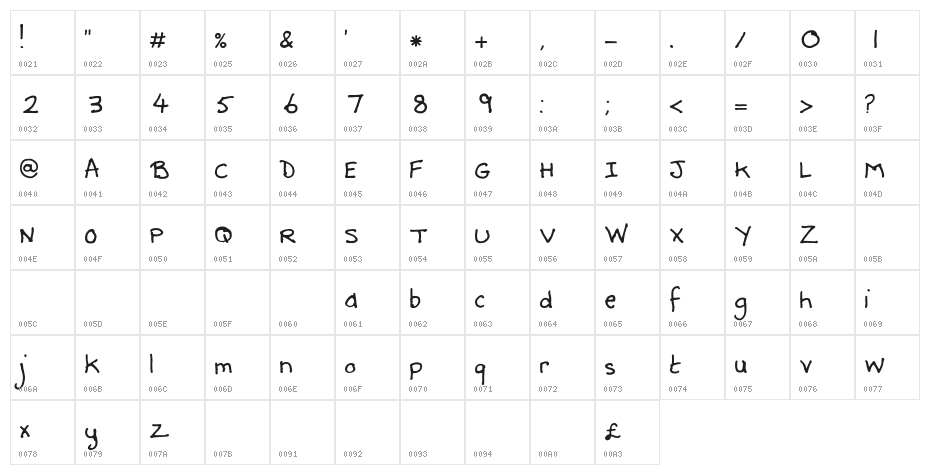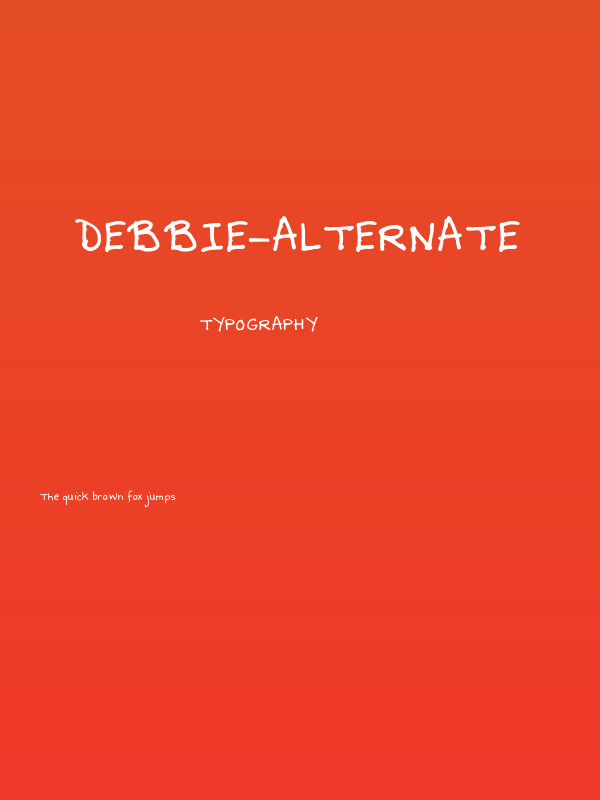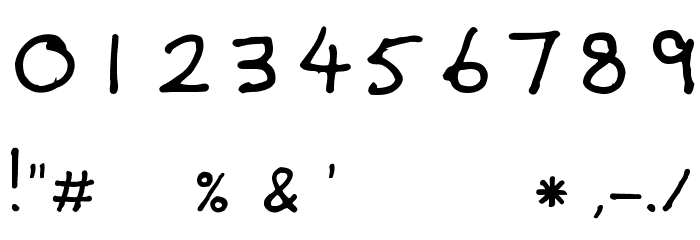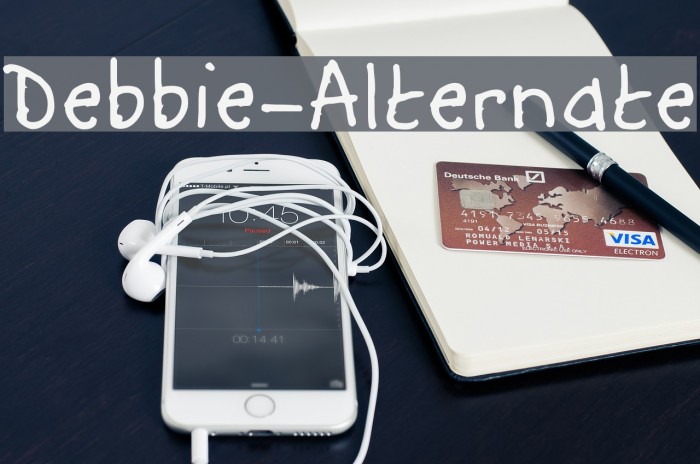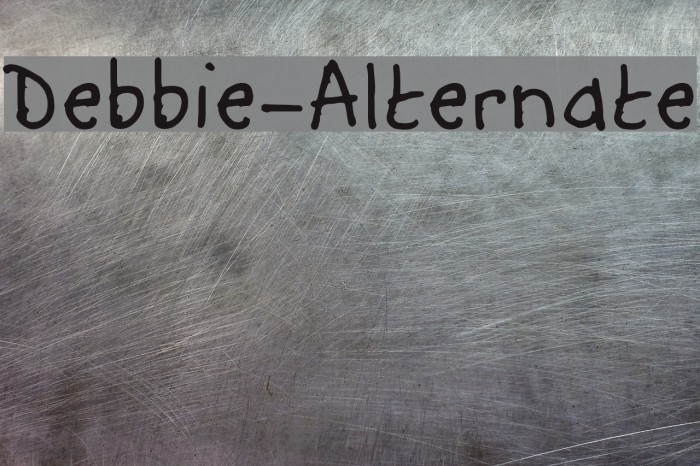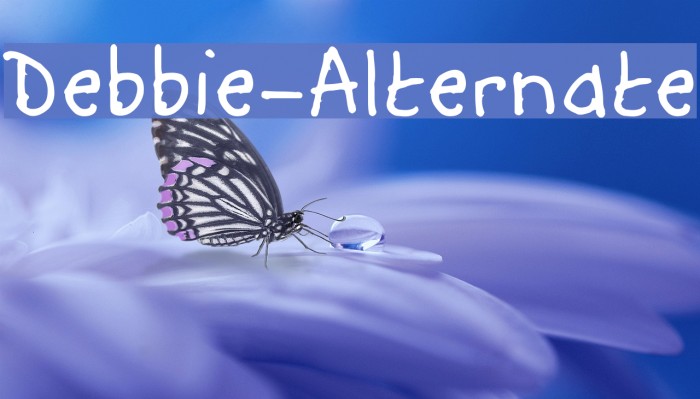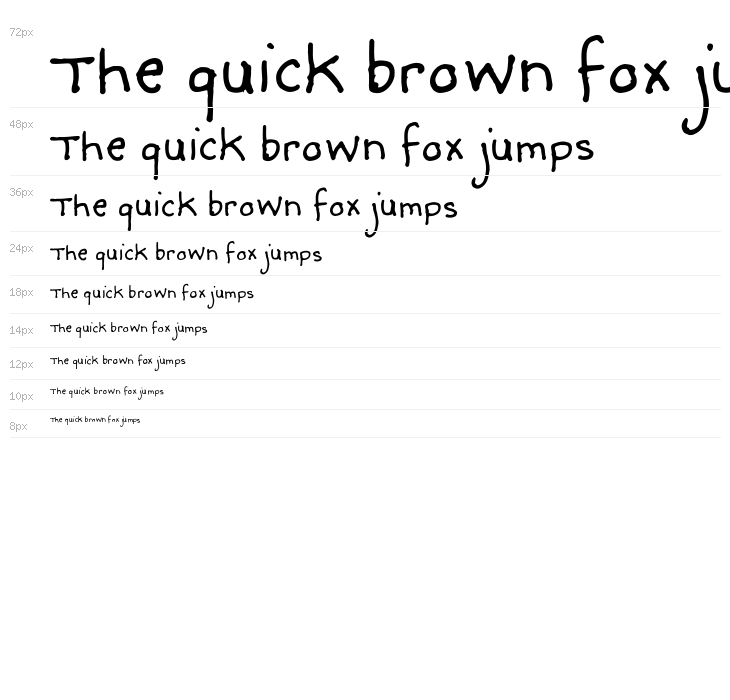
Debbie-Alternate Font
Debbie-Alternate Description
This font features a playful and casual handwritten style, characterized by its irregular and organic letterforms. The strokes are uneven, giving it a natural and personal touch, reminiscent of a quick note or a doodle. The uppercase and lowercase letters maintain a consistent style, with rounded edges and a slightly tilted appearance, adding to its informal charm. Numbers and special characters follow the same design ethos, ensuring a cohesive look across all glyphs. This font's unique personality makes it stand out, offering a friendly and approachable aesthetic.